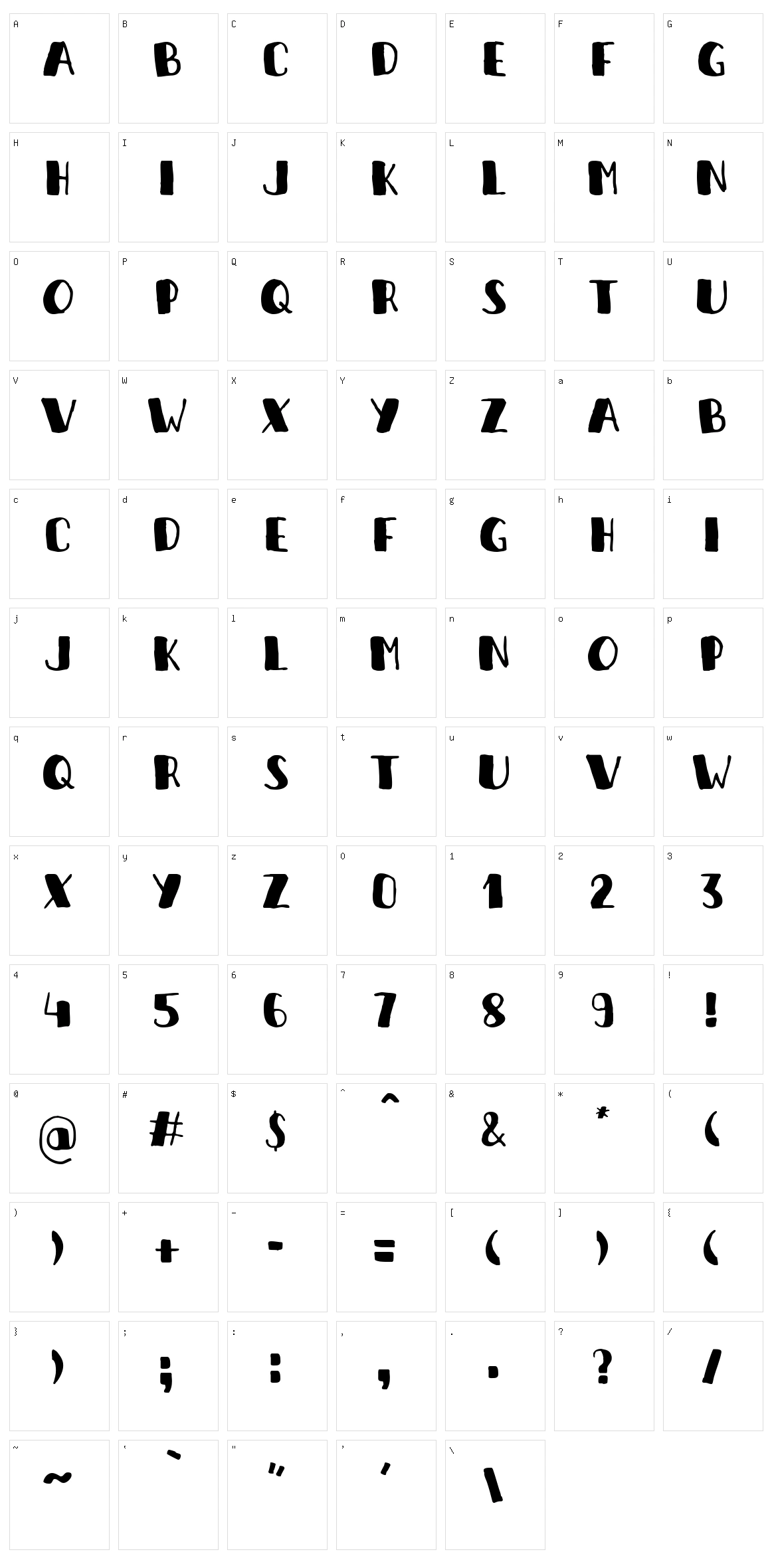
IT'S A PENALTY KICK!! has been designed using a black pen, white paper, a scanner, and patience. A lot of patience.
The picture on the preview has been taken by an AFP journalist during the 1974 FIFA World Cup Final, between the Netherlands and West Germany. Johan Neeskens beats Sepp Maier and gives the Dutch the lead. The German will score two goals to finally win this game.